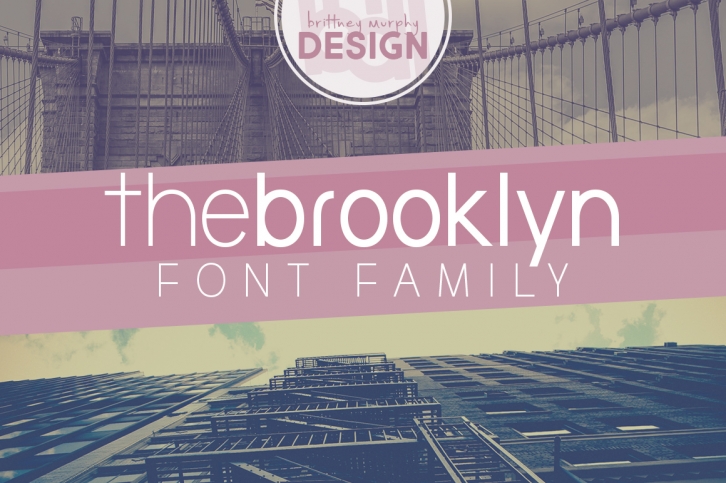
The Brooklyn Font Family is a clean sans-serif in two weights. The fonts have 475 characters, including Cyrillic and lots of accented Latin.
The Brooklyn was created as a cleaner, more modern take on Café & Brewery(http://bit.ly/2ACmKxG), and includes alternate characters (f,m,t w,W,I) that more closely resemble that font.